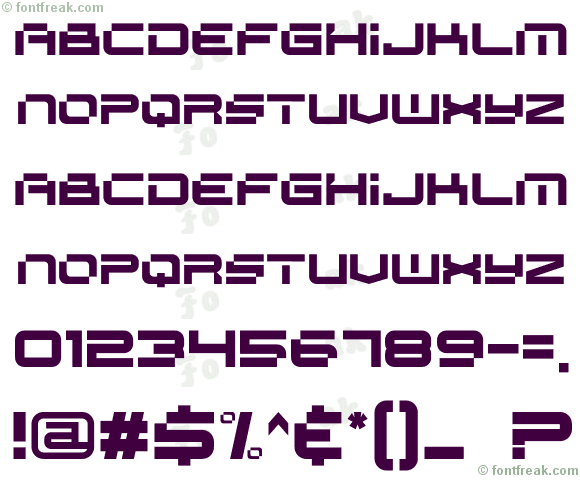
SPACE RACER
About SPACE RACER
SPACE RACER by MaknaStudio is a striking display font that captures the essence of speed and adventure, making it a perfect choice for projects that require a bold and dynamic aesthetic. Released in 2022, this freeware font boasts a unique design characterized by its thick, angular strokes and high contrast, which creates an eye-catching visual appeal. The letters exhibit a modern, futuristic vibe, enhanced by their streamlined forms and generous spacing, ensuring legibility even at larger sizes.
The visual characteristics of SPACE RACER include a robust stroke weight that conveys strength and movement, making it ideal for various design applications. Its decorative elements, while minimal, add to the sense of velocity, akin to the sleek lines found in racing graphics. This font is particularly well-suited for use in movie posters, where it can evoke excitement and anticipation. Additionally, it works wonders for branding campaigns aimed at tech startups or automotive businesses, where a contemporary edge is essential. Graphic designers will appreciate its versatility in creating eye-catching social media graphics, while small business owners can leverage it for promotional materials that stand out in crowded markets.
The target audience for SPACE RACER includes graphic designers, small business owners, and content creators who seek to convey a sense of motion and innovation in their work. Whether you're designing a website, crafting a logo, or making eye-catching flyers, SPACE RACER font free download offers an opportunity to elevate your projects with a distinctive flair.
What sets SPACE RACER apart is its ability to harmonize boldness with elegance, making it an invaluable addition to any designer's toolkit. Its unique blend of style and functionality ensures that it not only captures attention but also leaves a lasting impression.